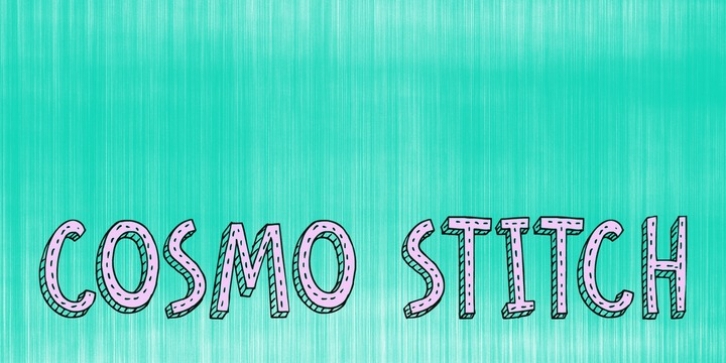
Cosmo Stitch downloadDesigner: David Kerkhoff
Publisher: Hanoded
Cosmo Stitch is a very nice cartoonesque 3-D font with a couple of loose stitches thrown in for good measure. It is a rough-edged, uneven all-caps font, which would liven up packaging, headlines, posters and billboards. Comes with a generous sprinkling of diacritics.